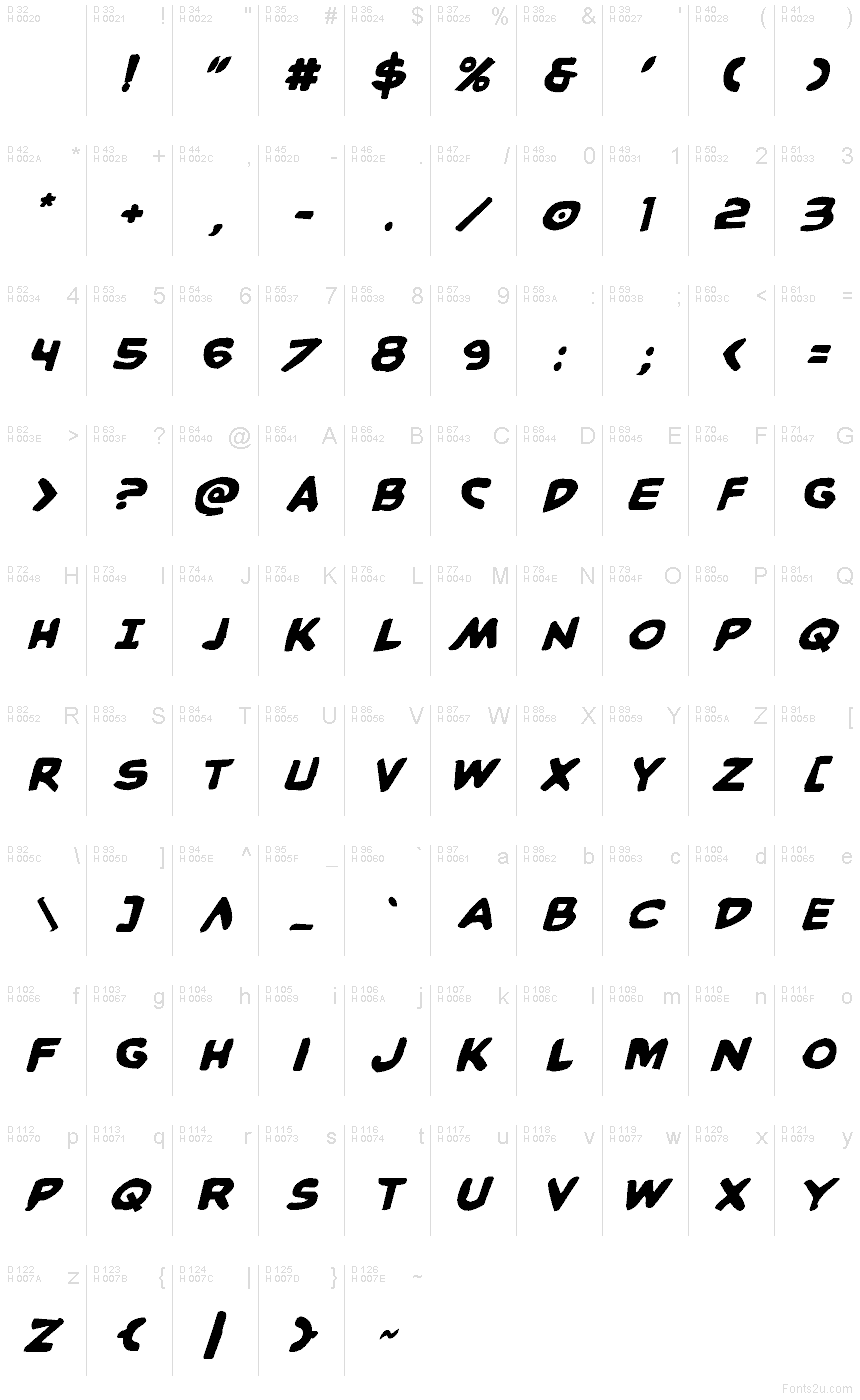
Caped Crusader Warped Italic
Caped Crusader Warped Italic font is another exciting and energetic release from Iconian Fonts. It’s an expanded, bold, powerful, and comic typeface that successfully demands attention across printed and digital platforms. If that’s your objective in the next project at hand, this dramatic font should get you there with distinctive edges and shapes.